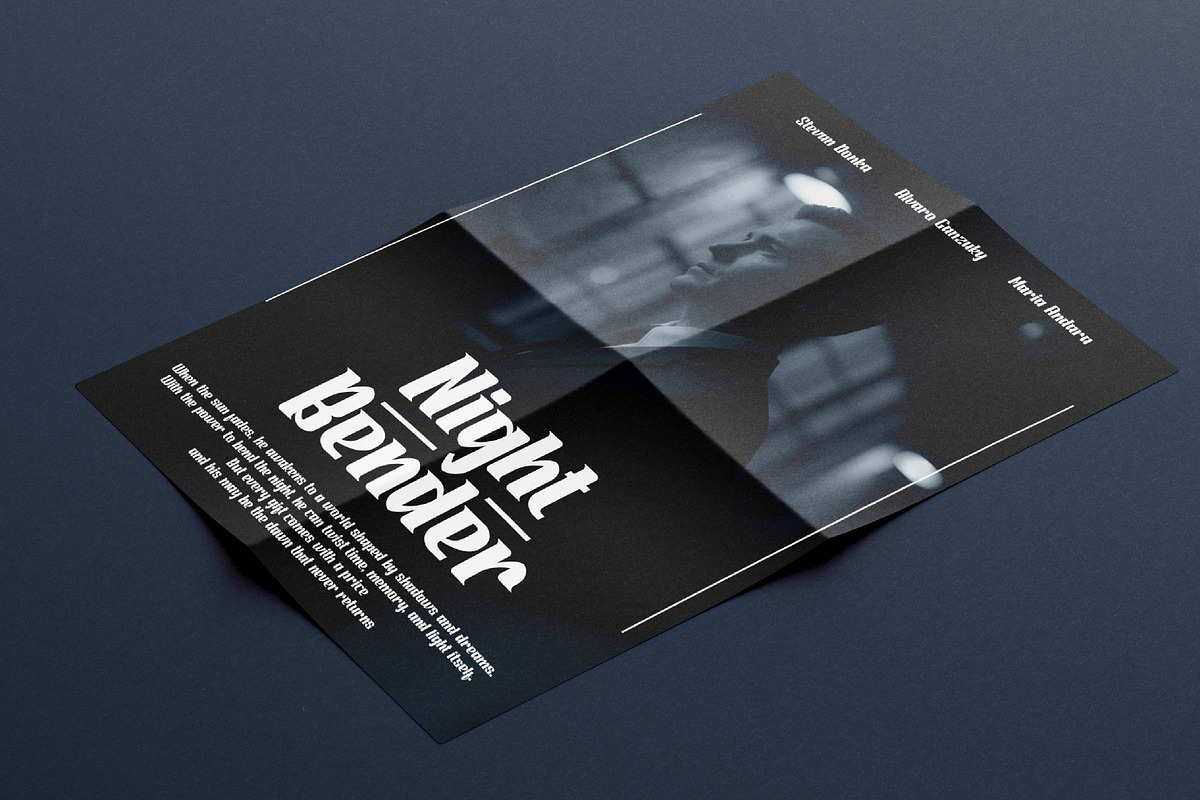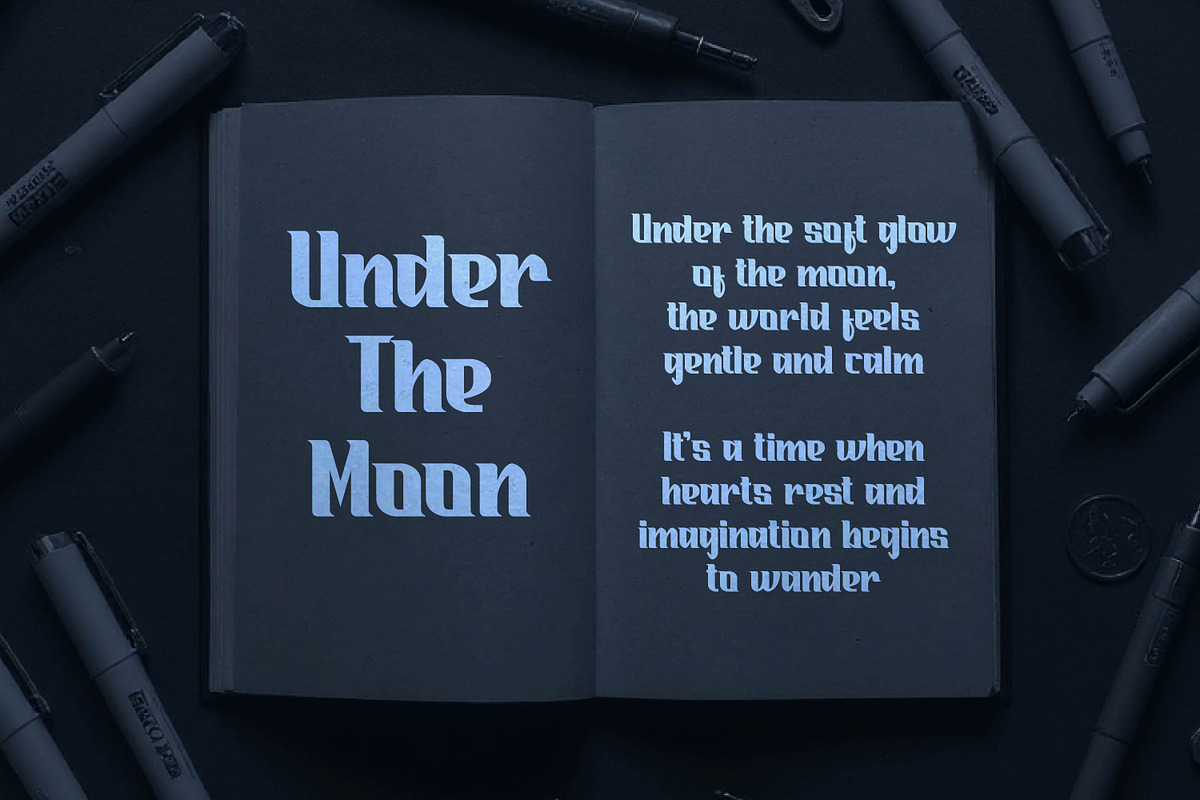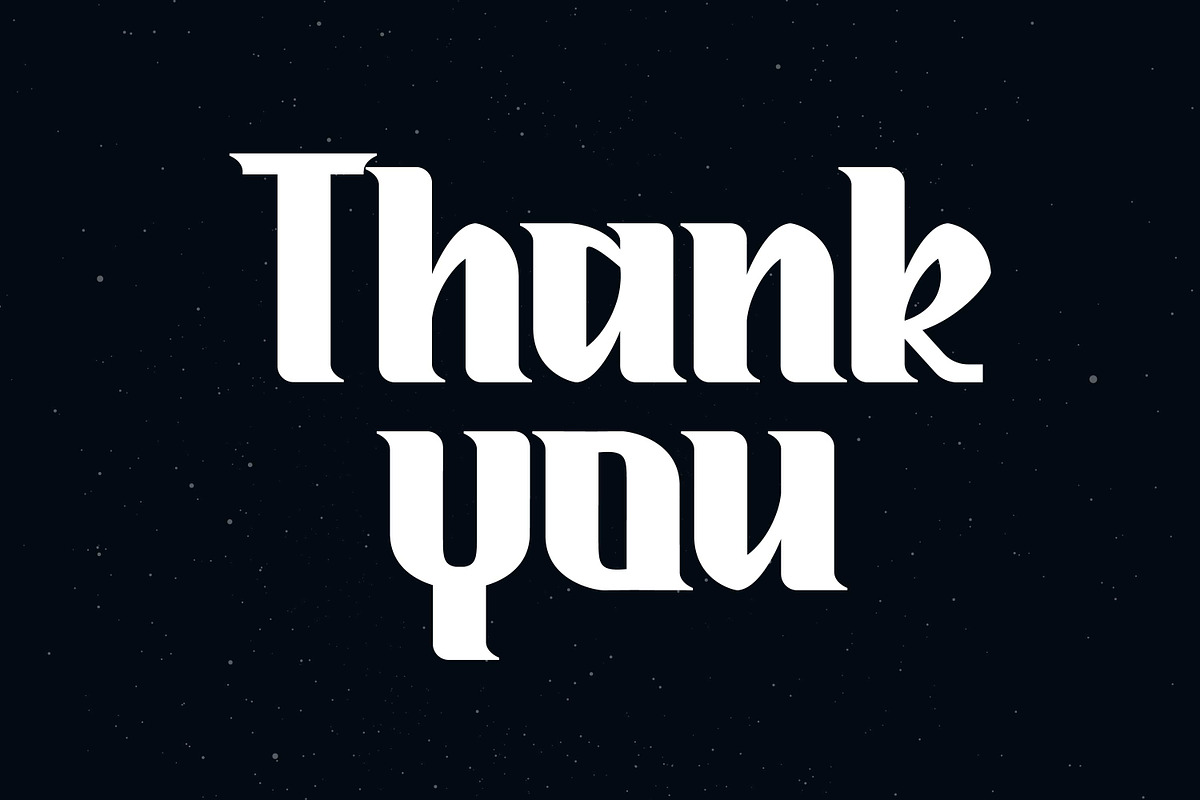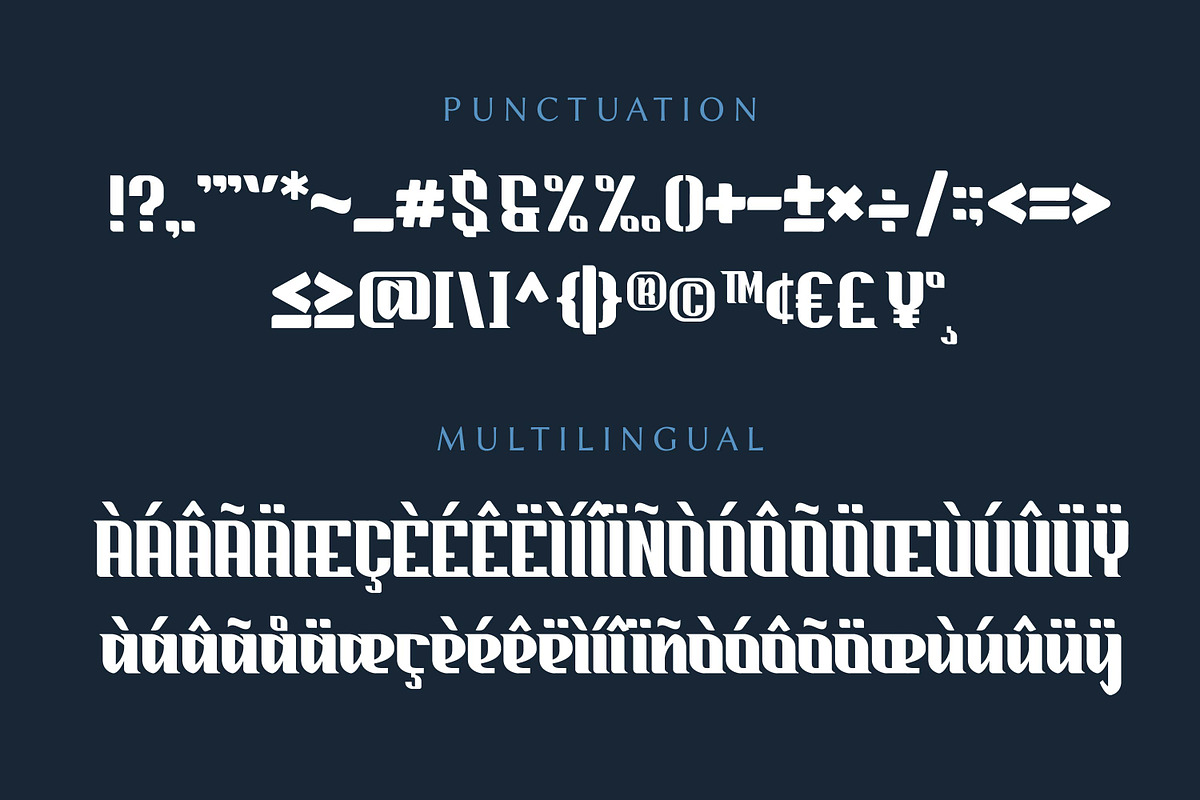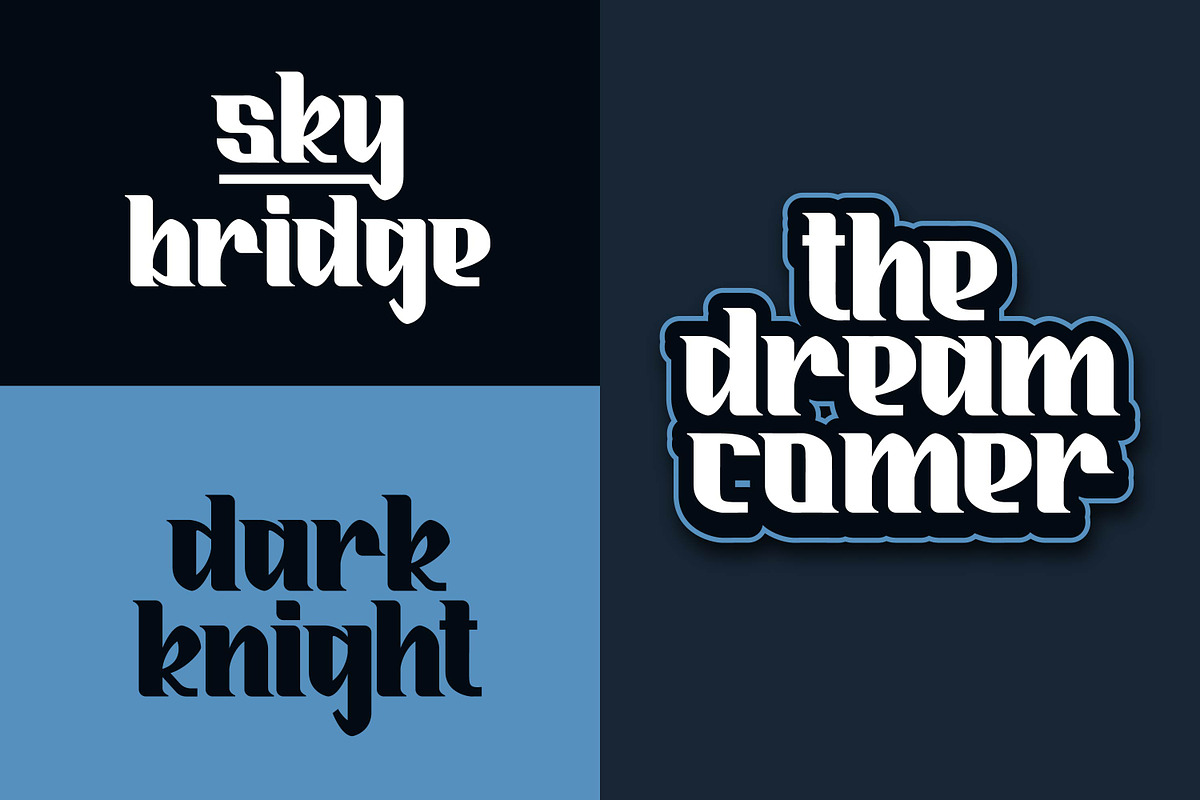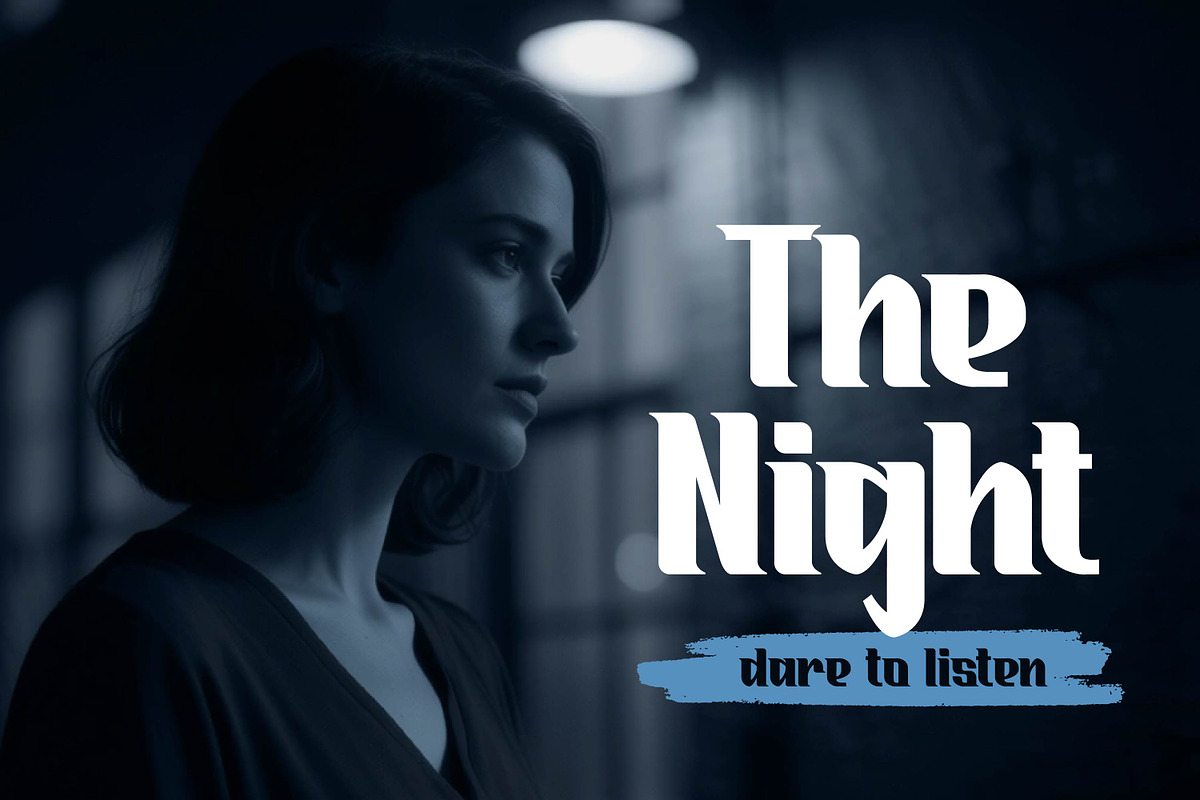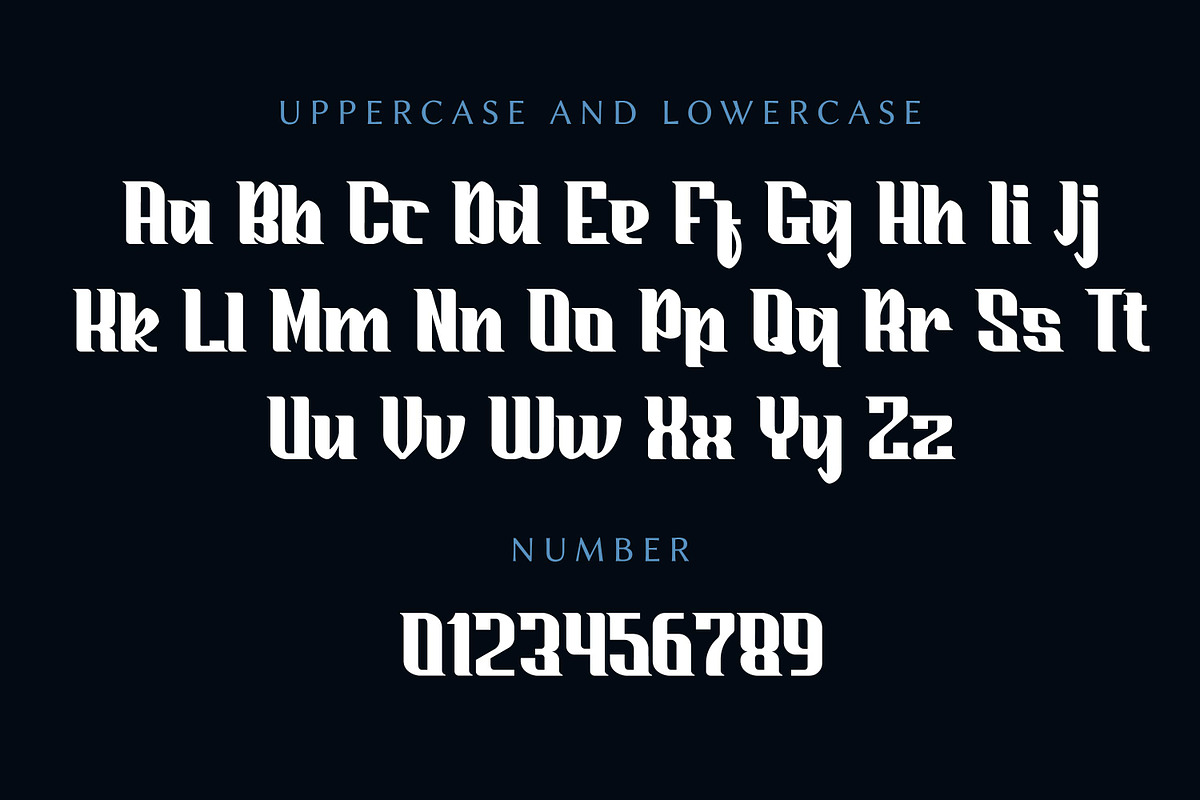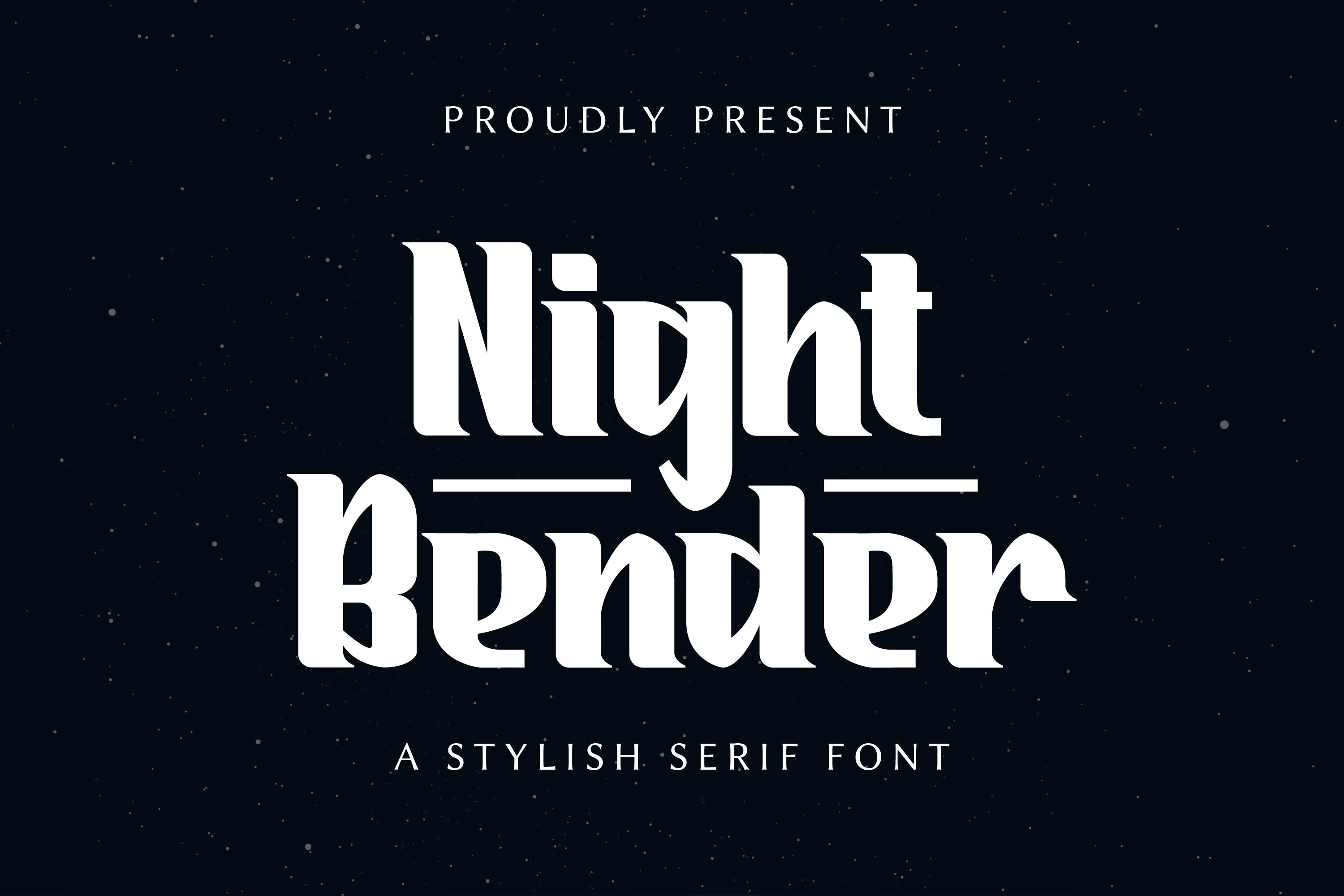
Night Bender - Stylish Serif Font
Night Bender is a stylish serif font that combines modern sophistication with timeless elegance. Its refined curves and sharp serifs make it perfect for fashion branding, magazines, editorials, or luxurious product packaging that needs a bold and confident impression.